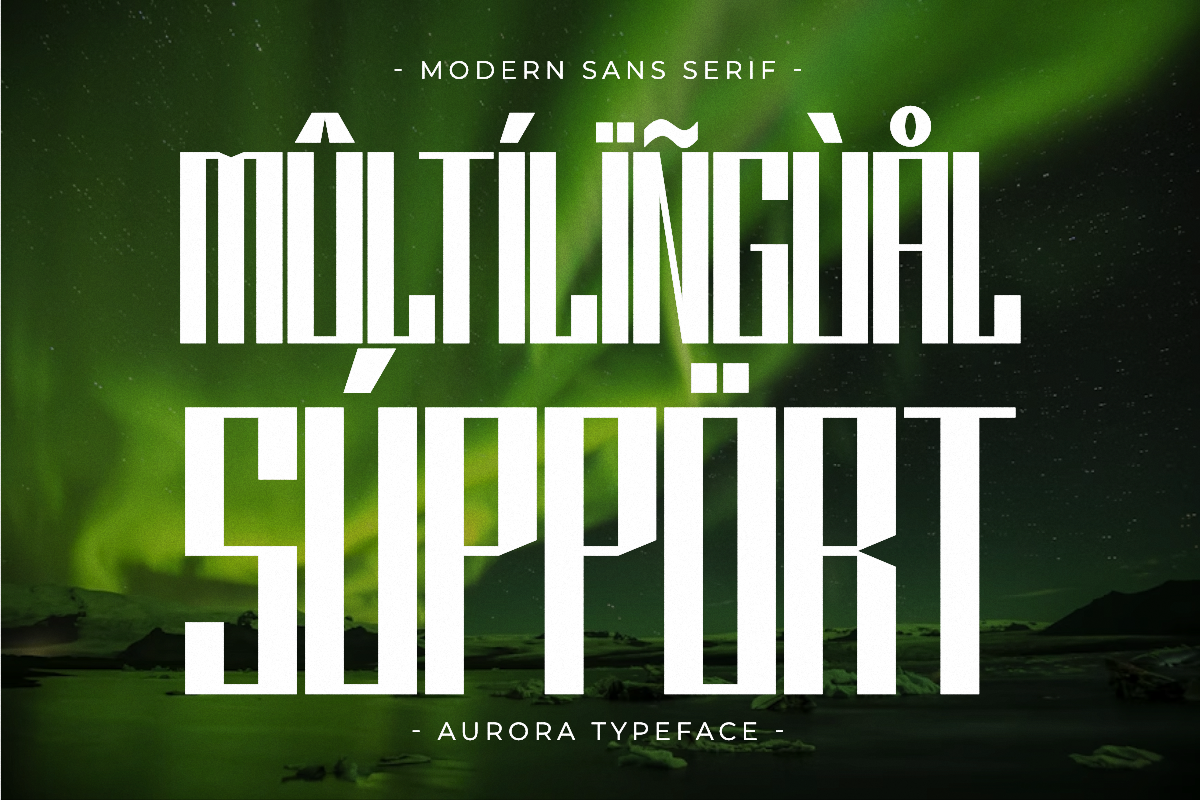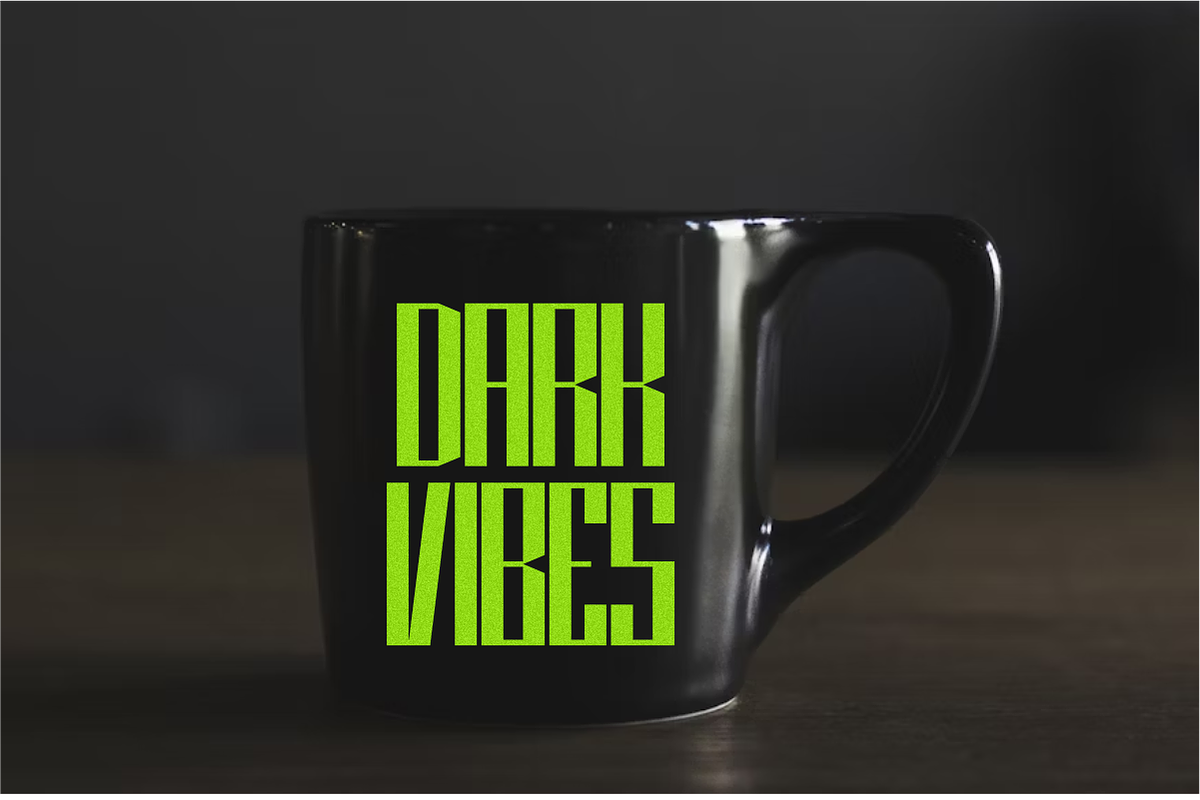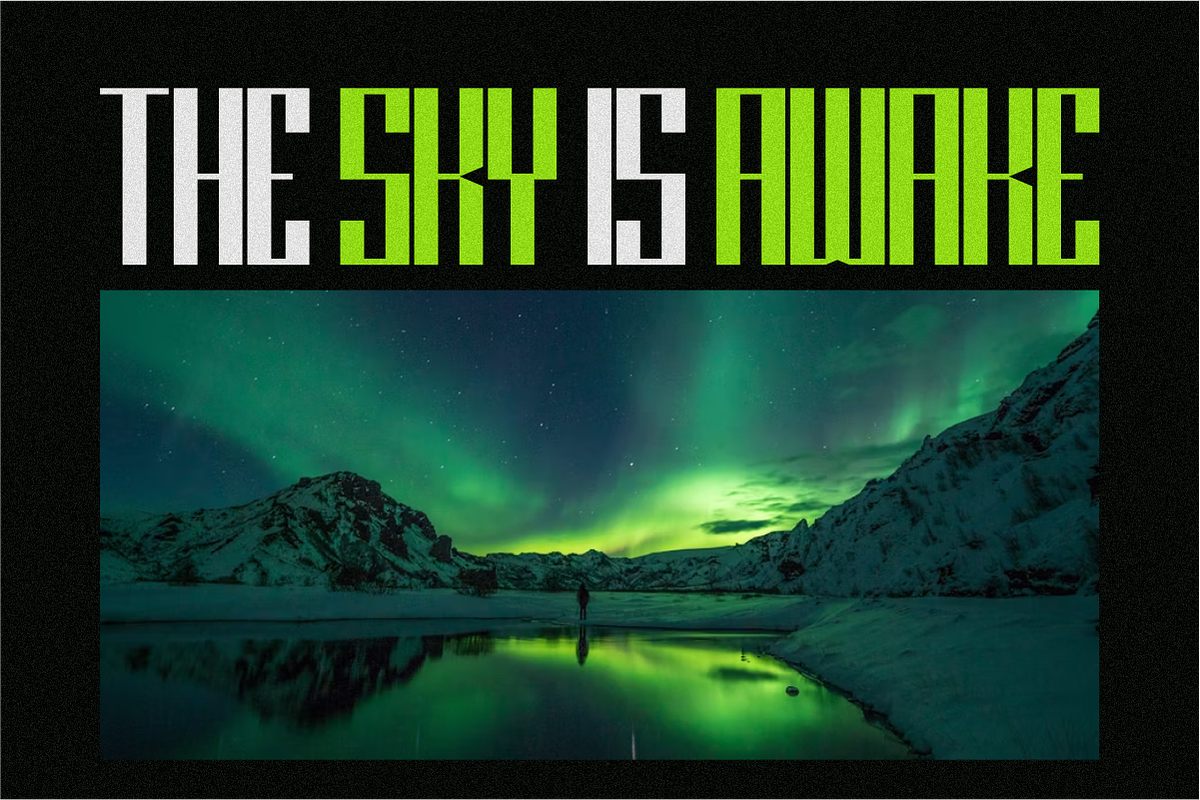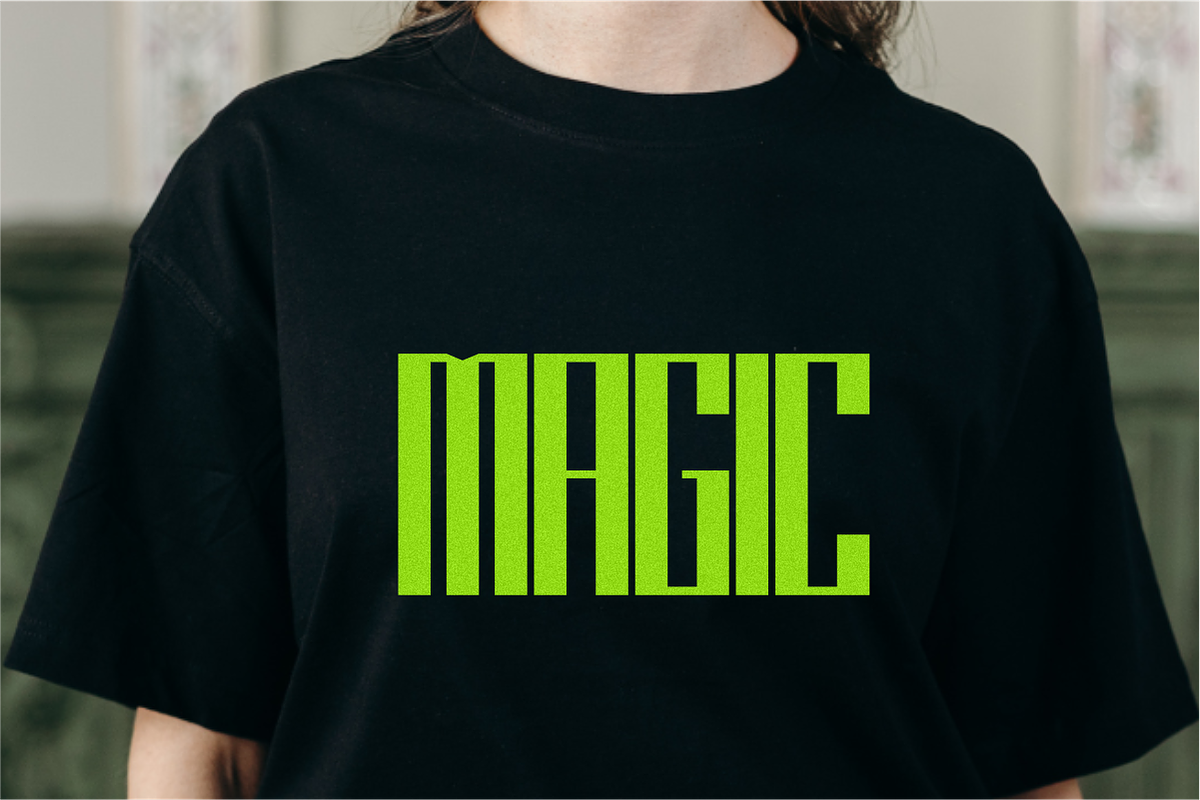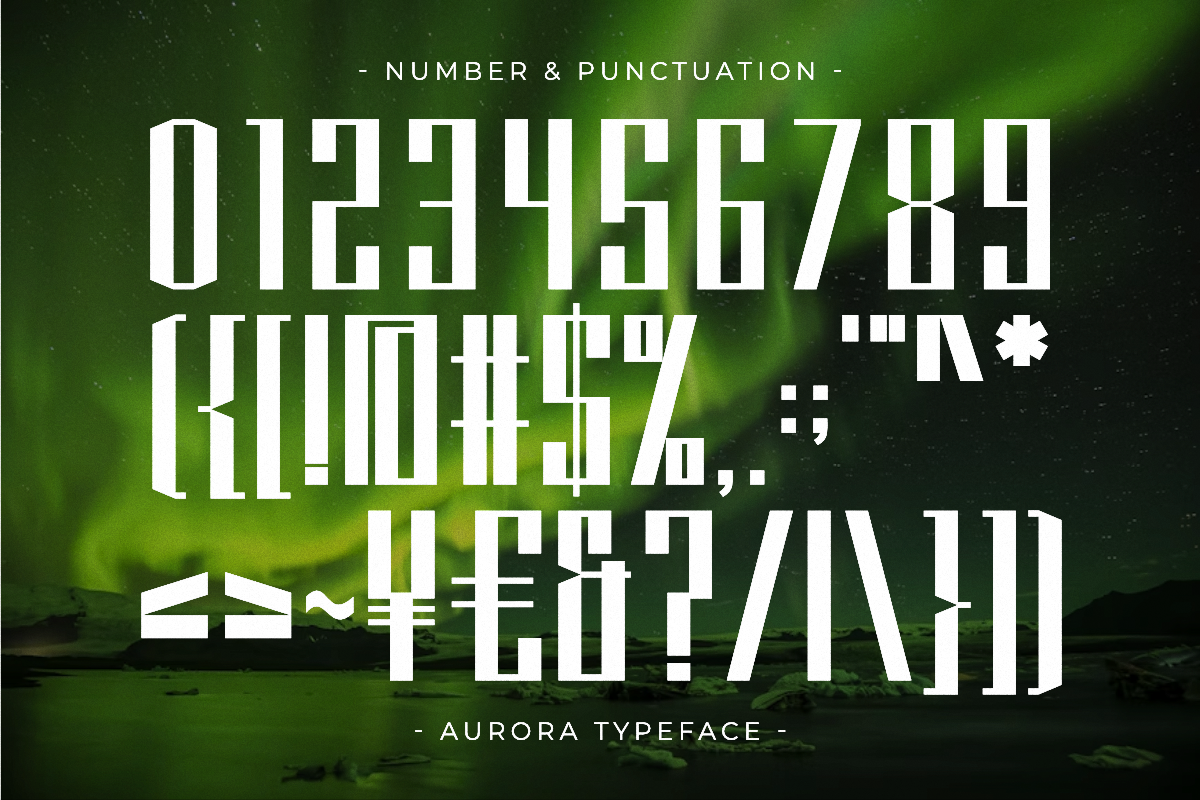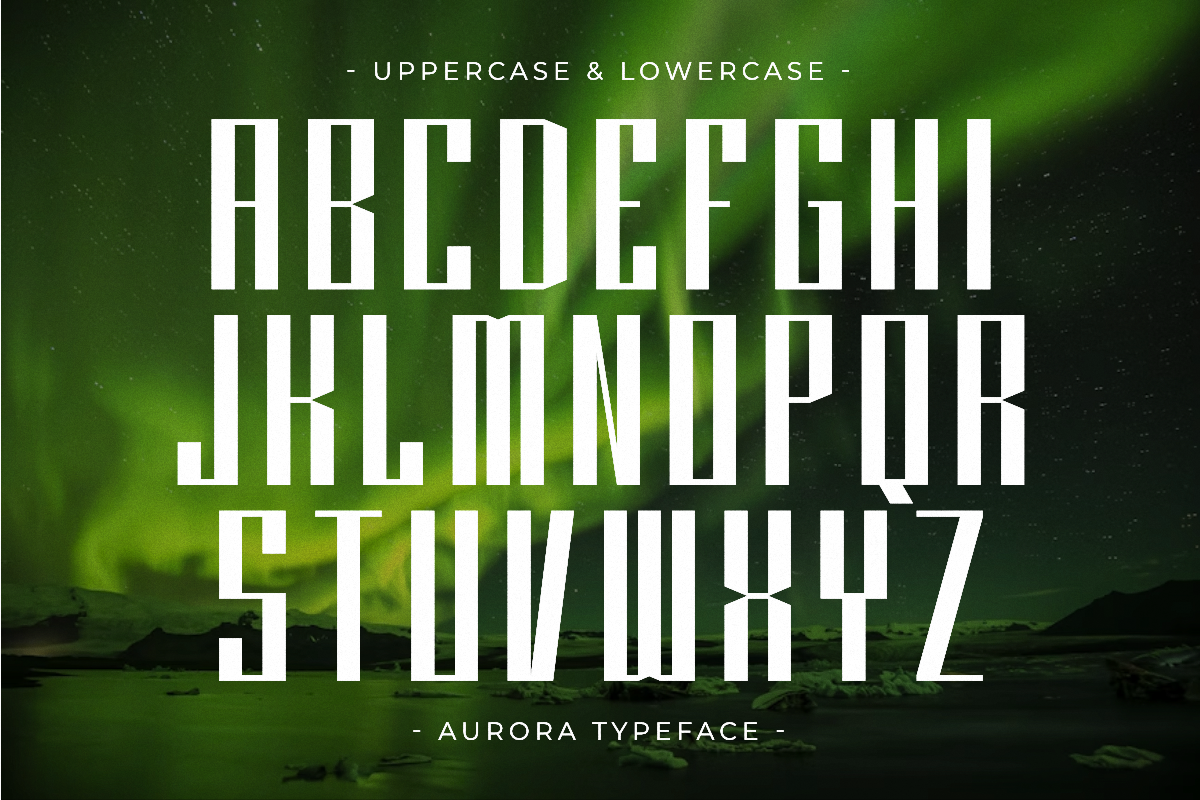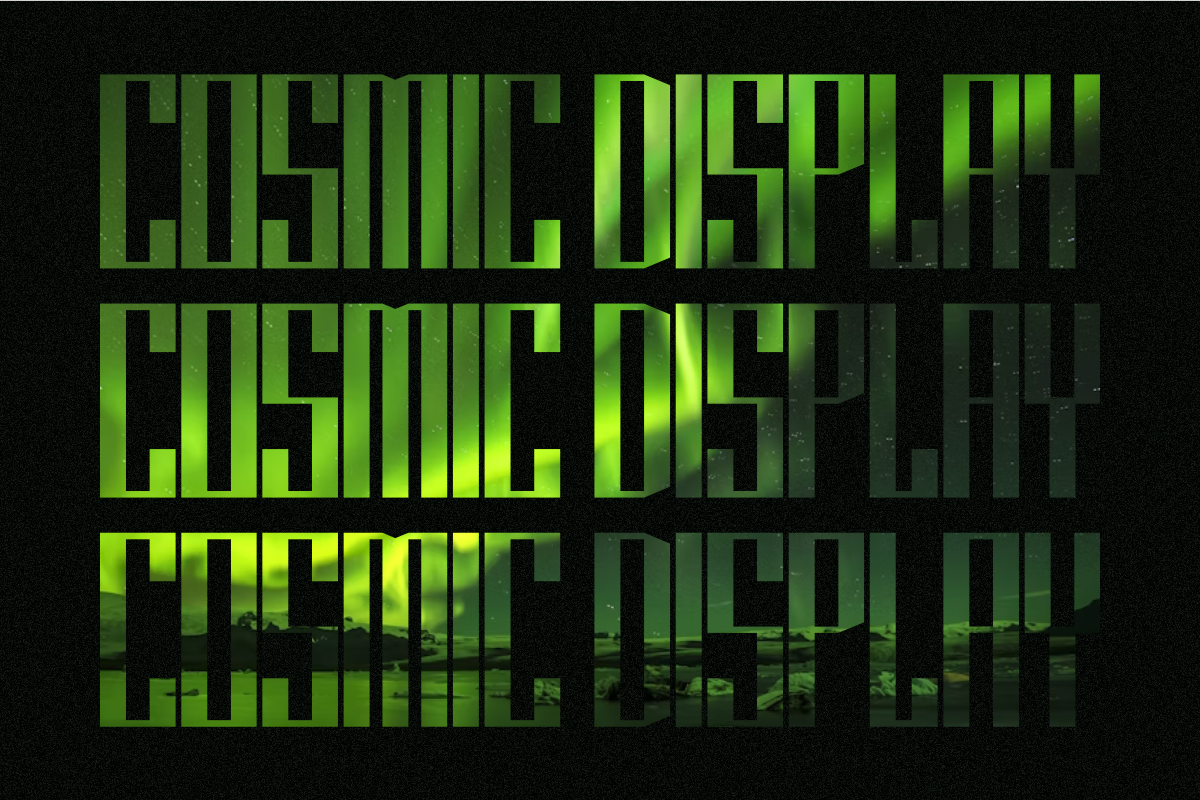
Aurora - Condensed Sans Serif
Aurora is a striking Modern Condensed Sans Serif typeface, designed for maximum impact and sleek elegance. Its ultra-narrow and clean structure makes it perfect for bold, monumental headlines, luxury branding, modern logos, high-end editorial designs, and minimal posters. The unique character cutouts give it a memorable, futuristic, and sophisticated edge, ideal for any project requiring a strong, geometric display font. Aurora delivers a powerful, clean aesthetic for contemporary branding and high-fashion visuals.